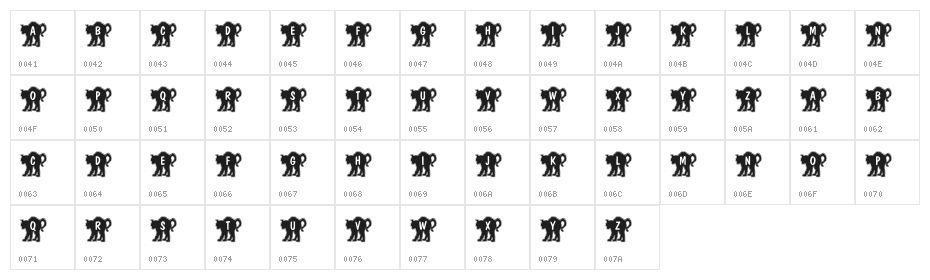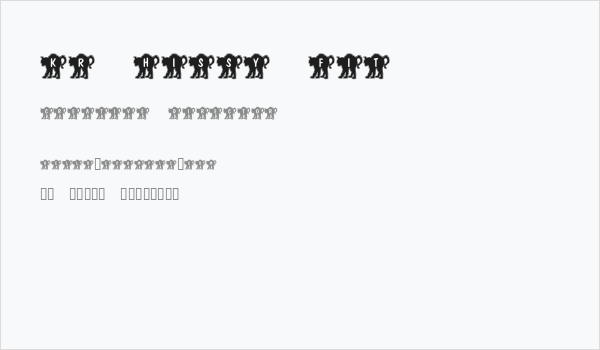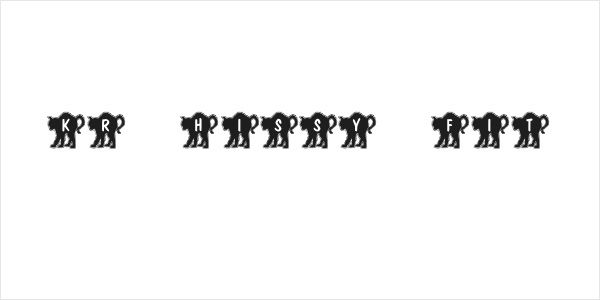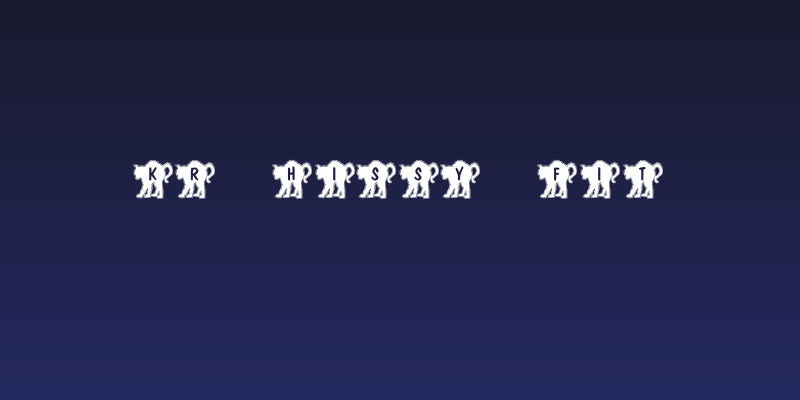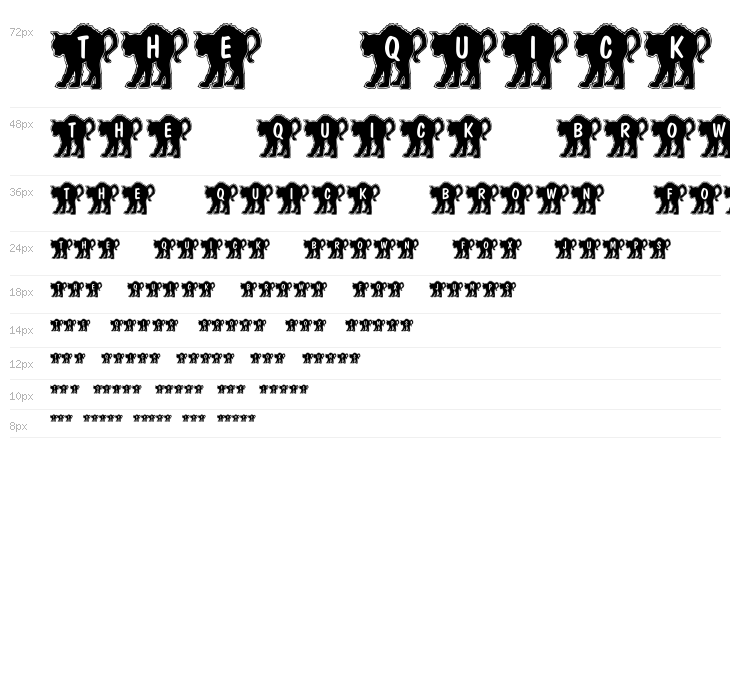
KR Hissy Fit Font
KR Hissy Fit Description
This playful and whimsical font features each letter integrated into the silhouette of a cat with its tail playfully curled. The design is bold and eye-catching, making it perfect for creative projects that require a fun and unique touch. The letters are uppercase and maintain a consistent style throughout, with each character being easily recognizable despite the decorative elements. The font's distinct style is ideal for projects that aim to convey a sense of humor or lightheartedness.
Overall StylePlayful
Proposed ProjectsIdeal for children's book covers, pet-related branding, playful posters, and novelty items.